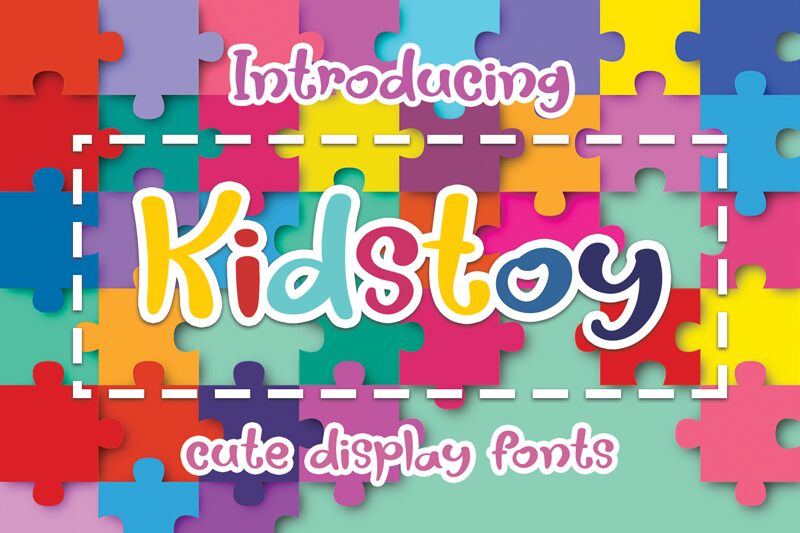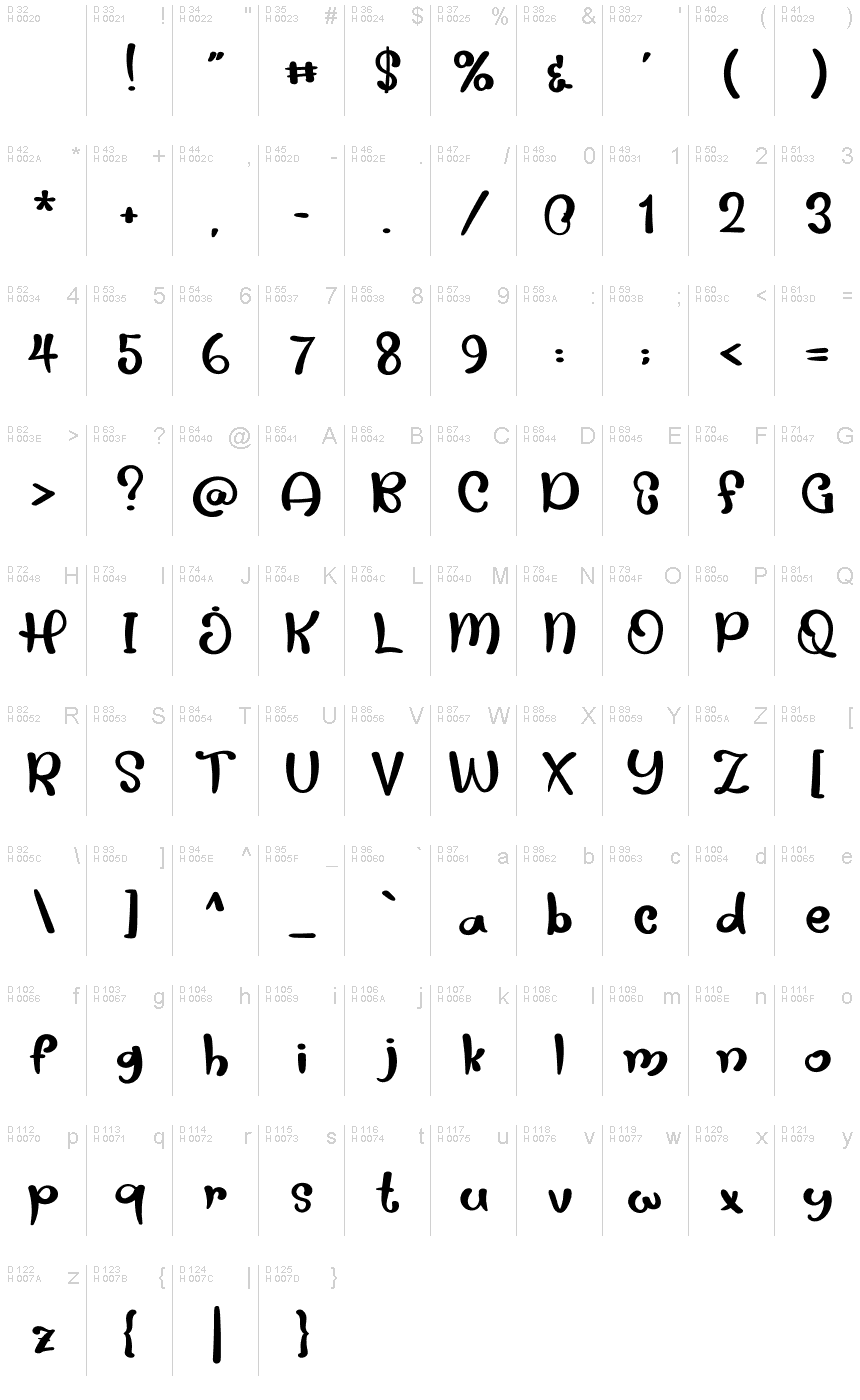
Kidstoy
Kidstoy is a cool looking and friendly display font designed by Luluk Surotul. Whether you are using it for cartoon-related designs, childrens games, quotes, titles, brand names, book covers, posters, or just any creation that requires a touch of beauty, this font is a great choice.